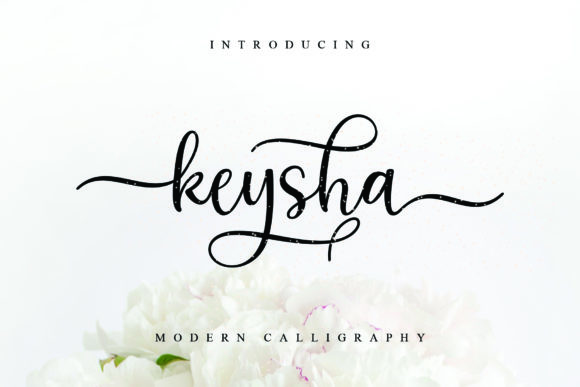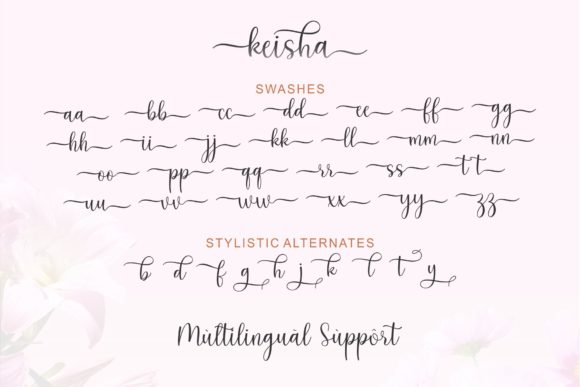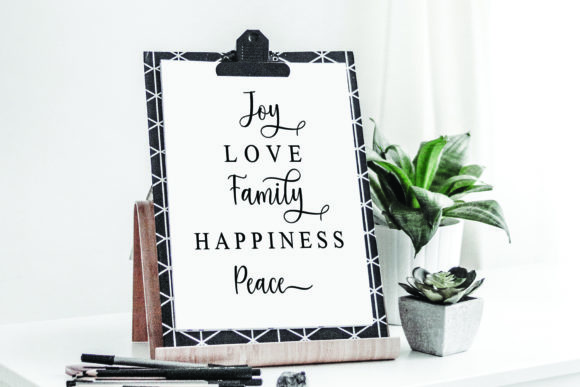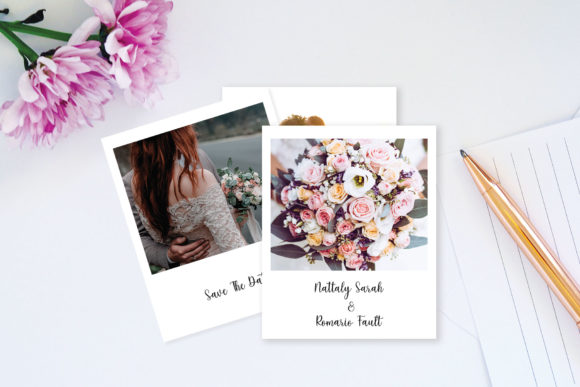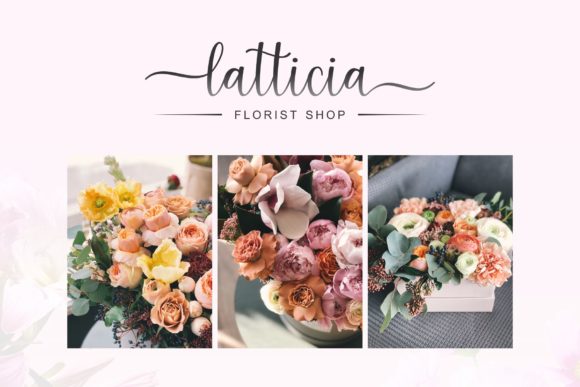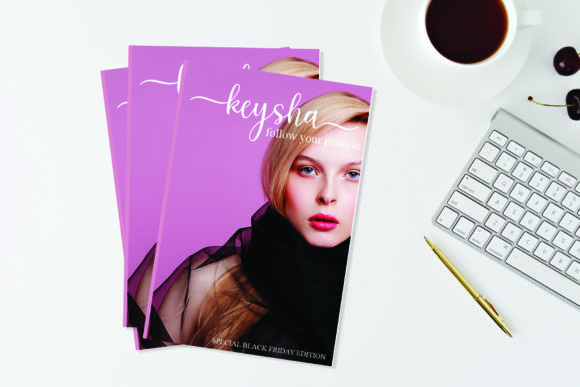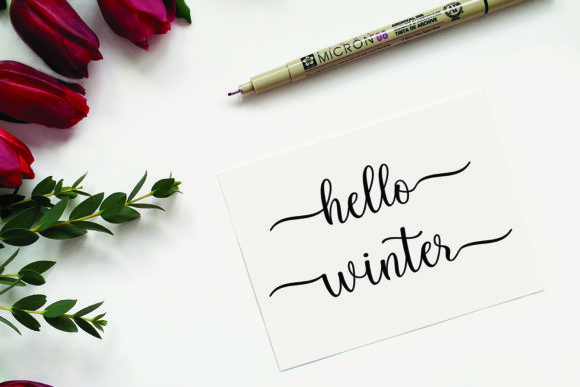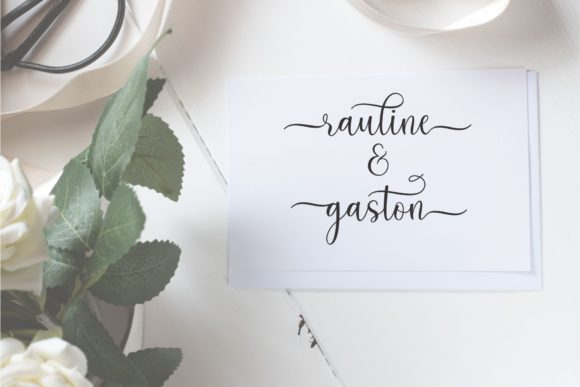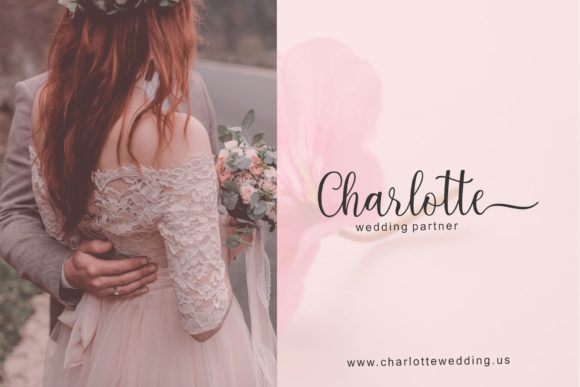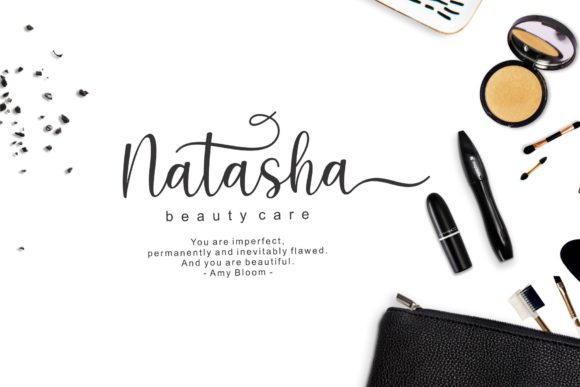
Keysha Font
About Keysha Font
Keysha is a beautifully elegant script typeface. It has a fresh and modern look that can be used for any design project!